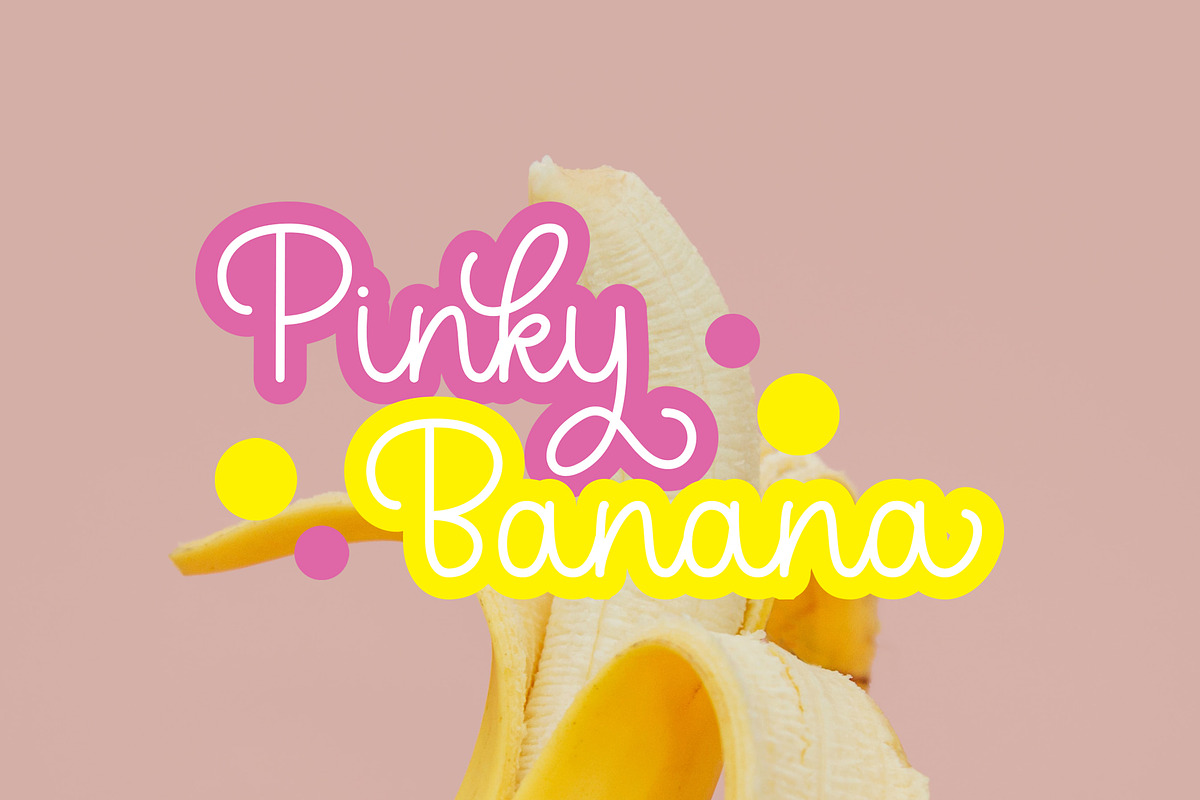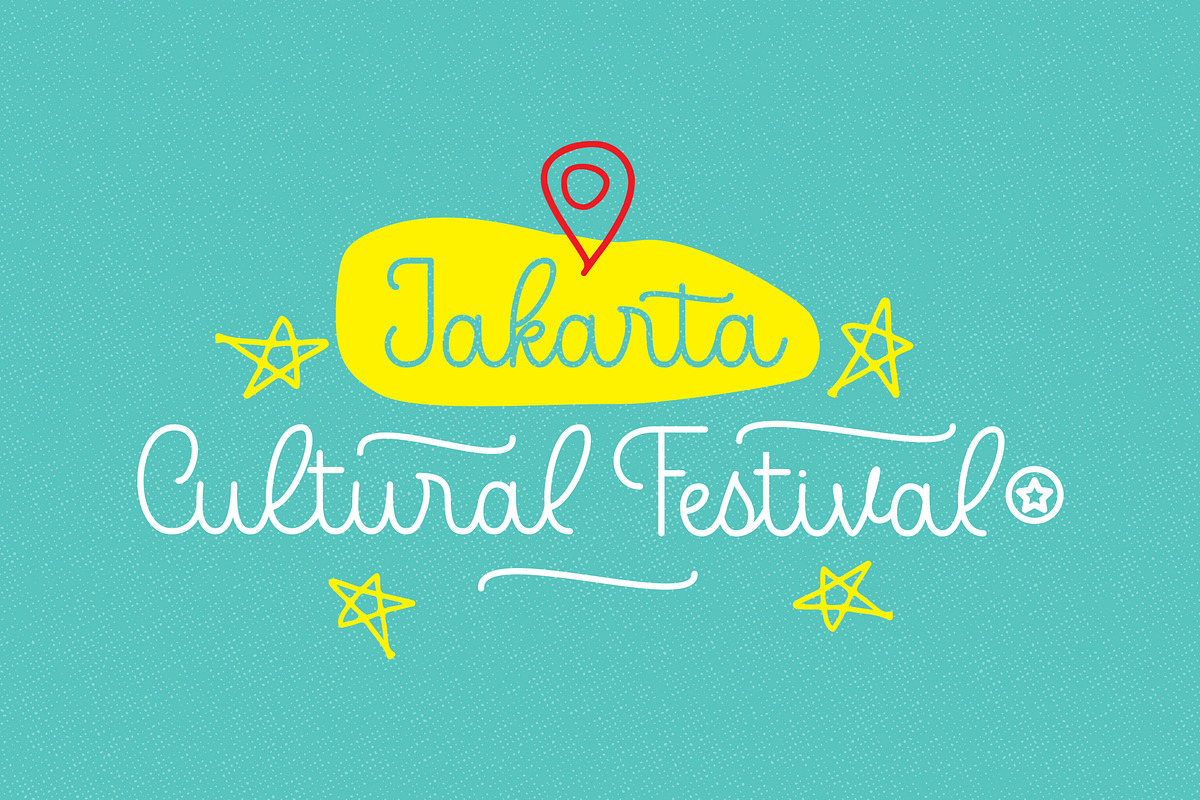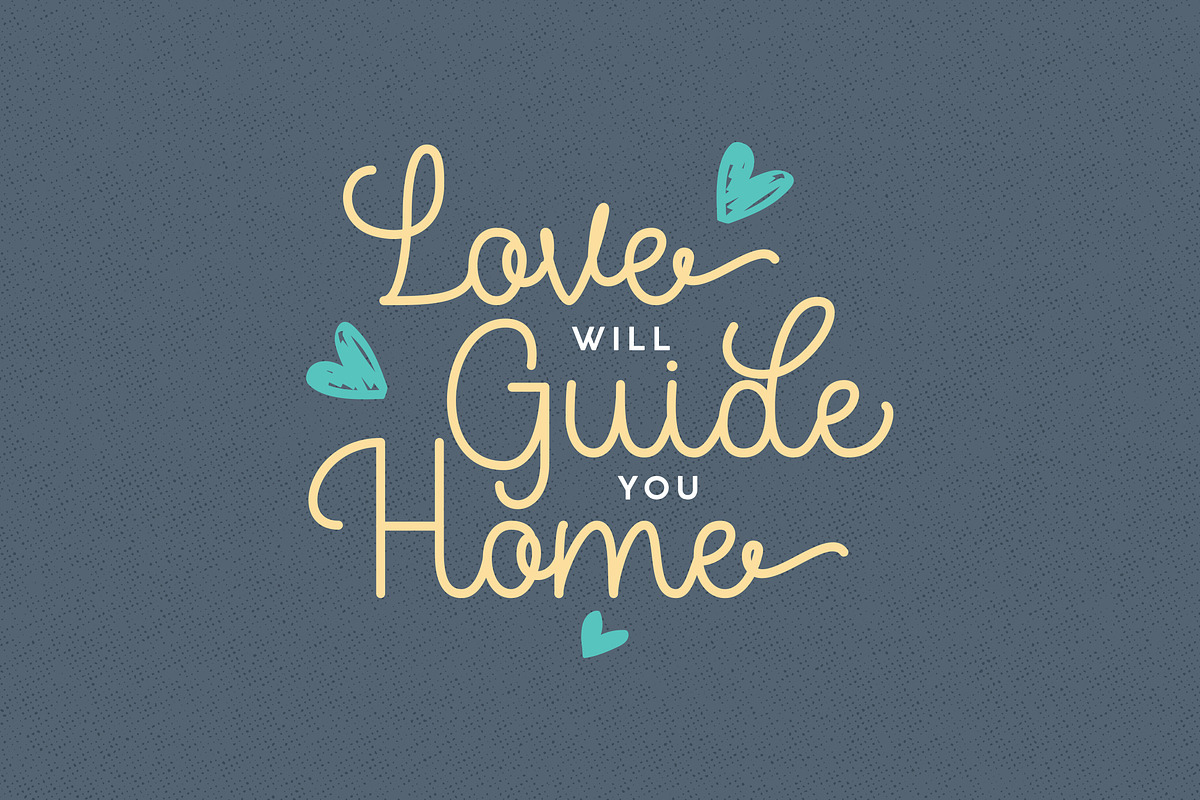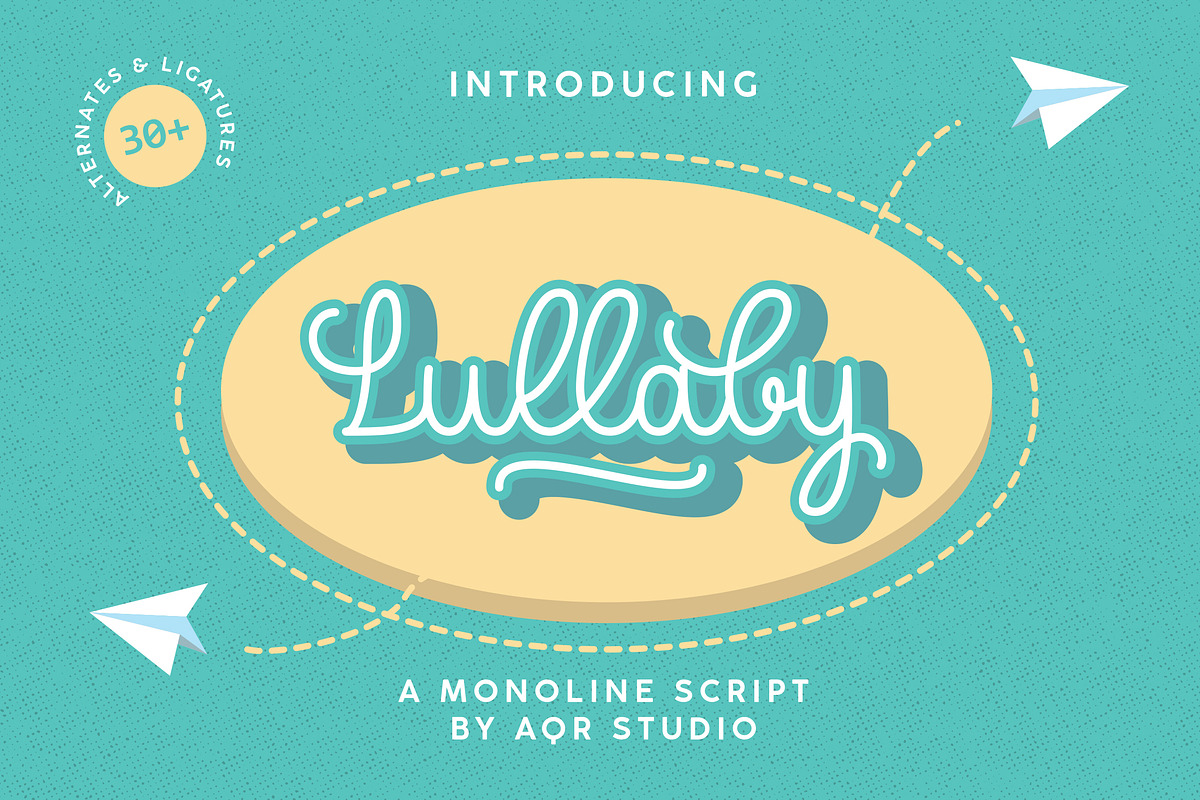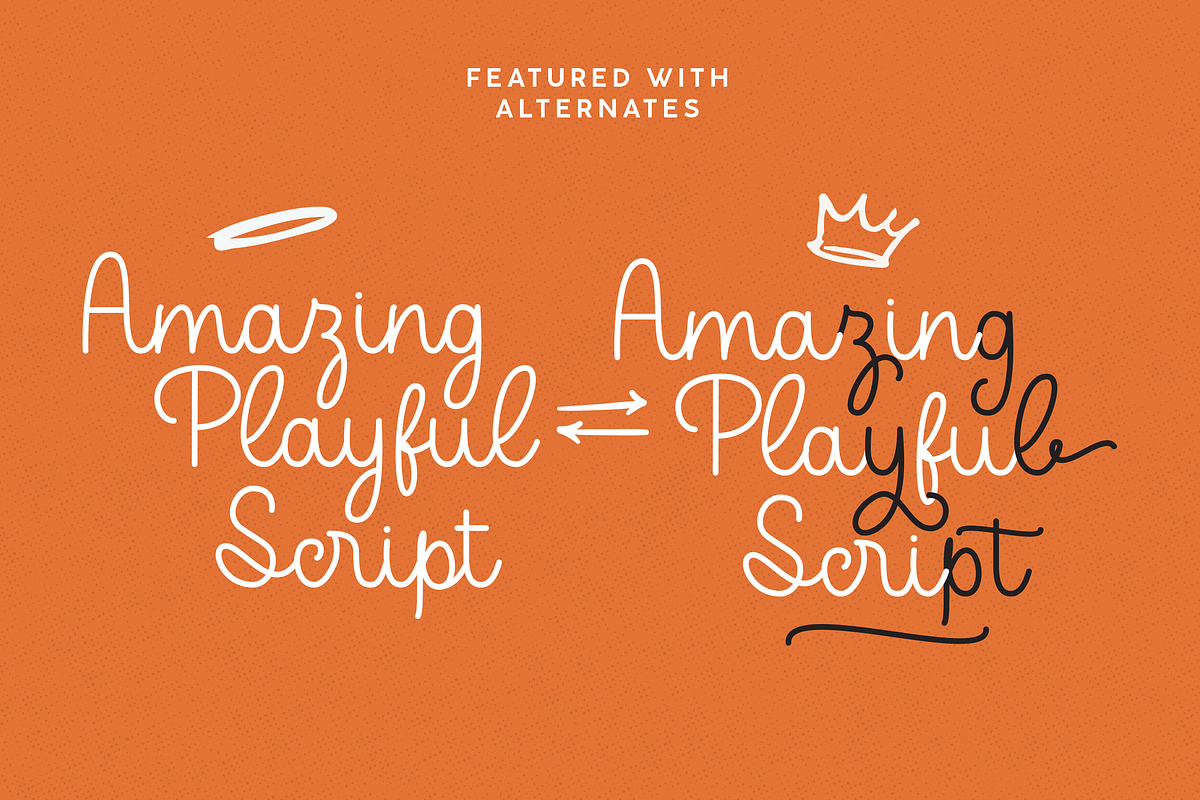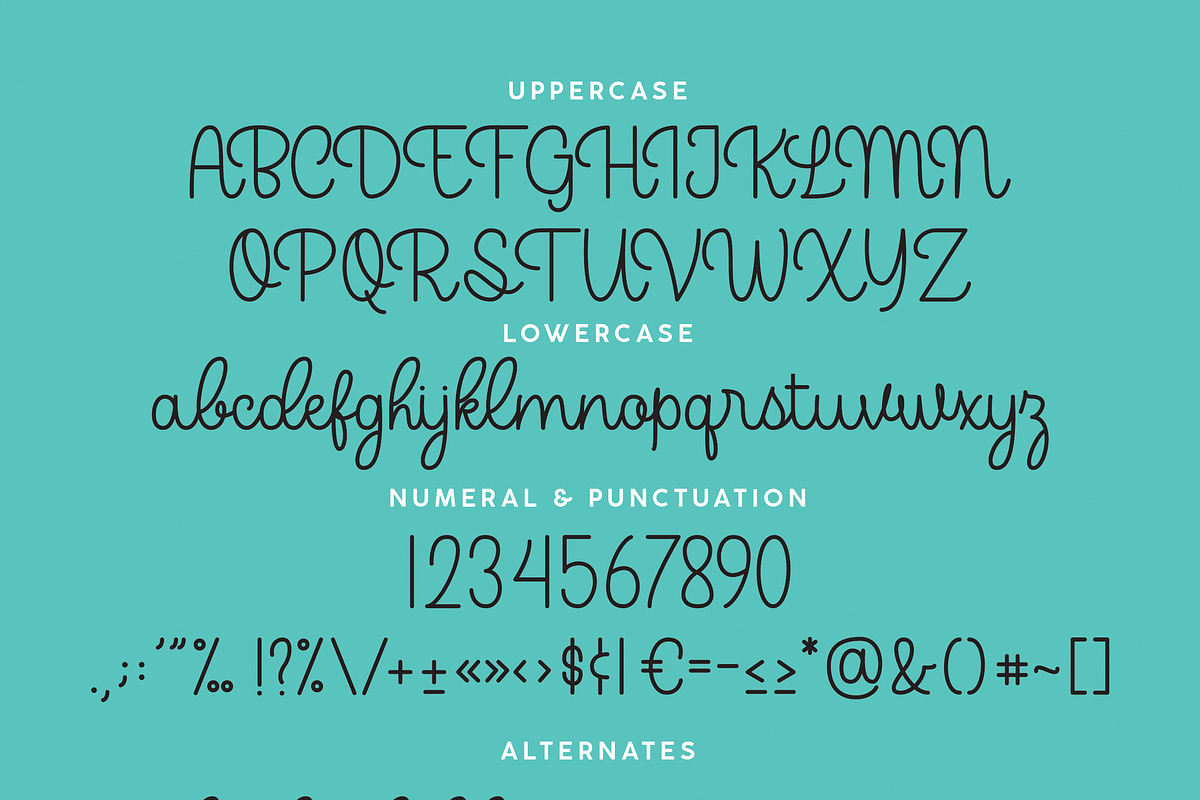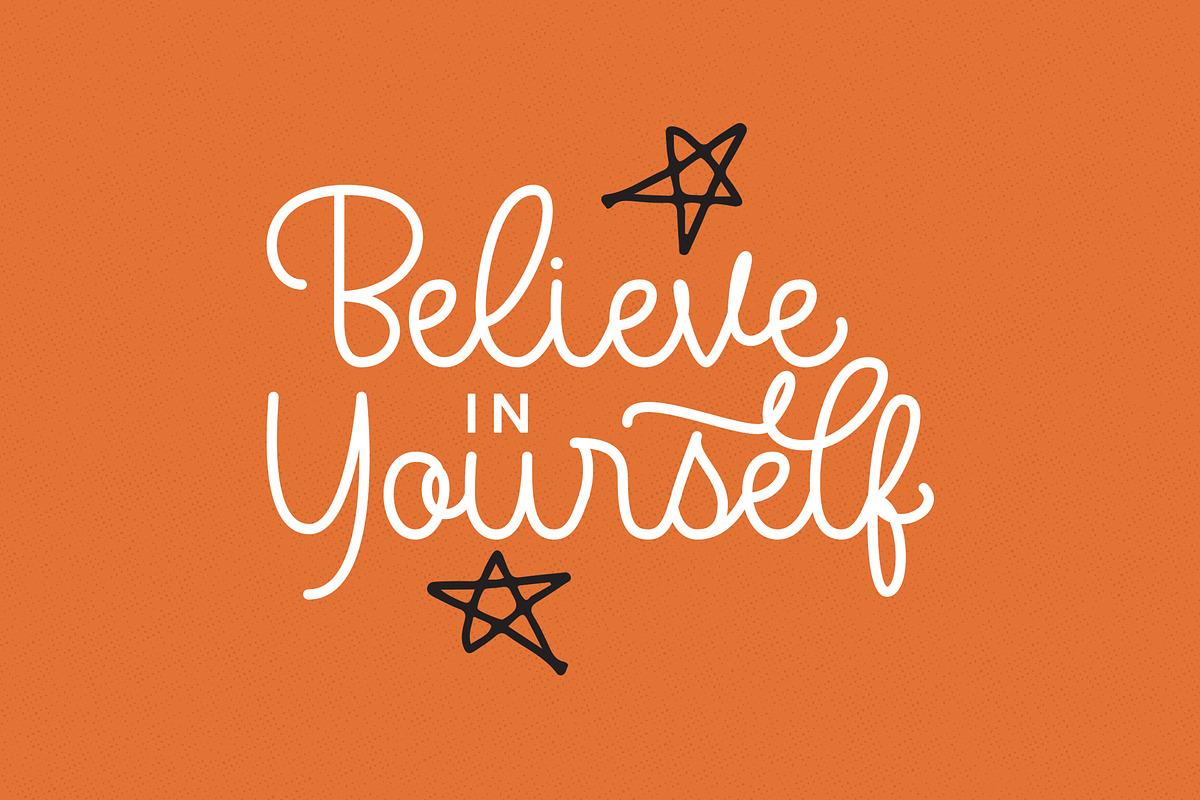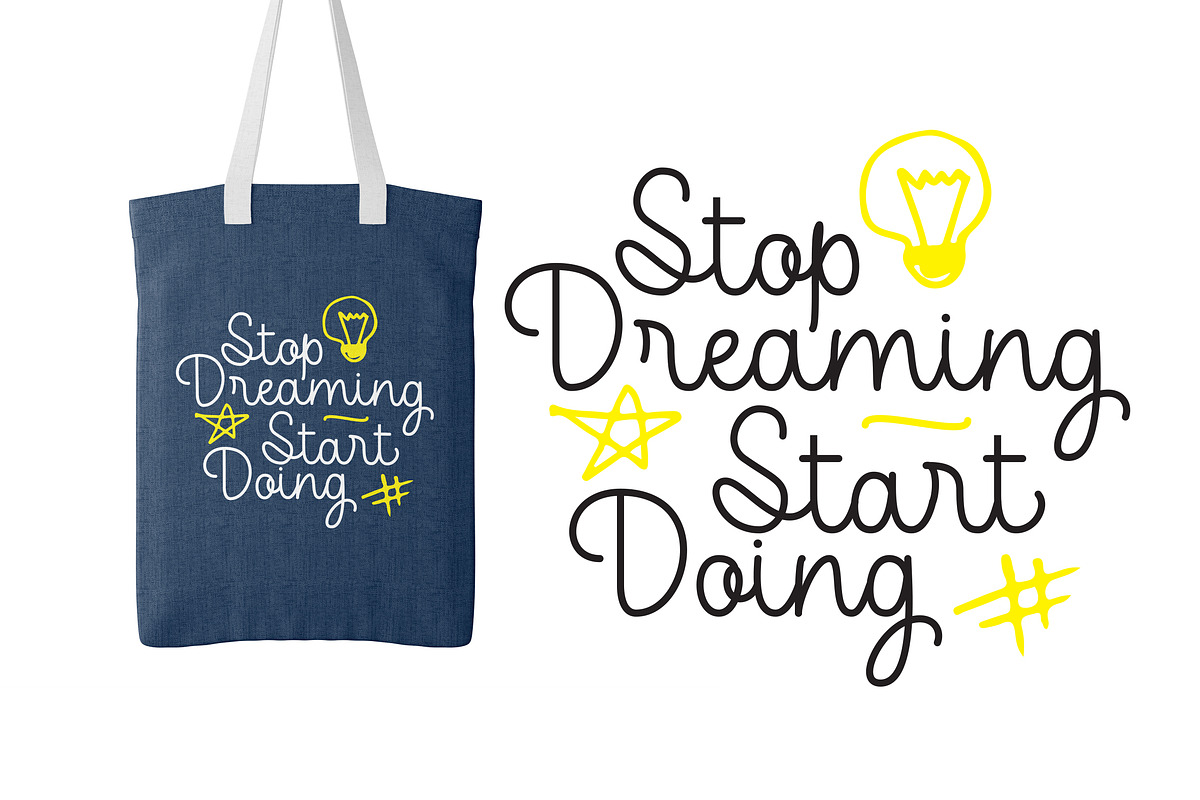
Lullaby Playful Typeface
Lullaby is a manual lettering with style monoline, These font can be making playfull and funny design. Lullaby comfortable for kids design, fun design, photography, branding design and many more.
Lullaby Script Featured With :
Multilingual Character
Lullaby Playful Typeface by AQR Studio fits naturally into Branding, posters, packaging, typography.